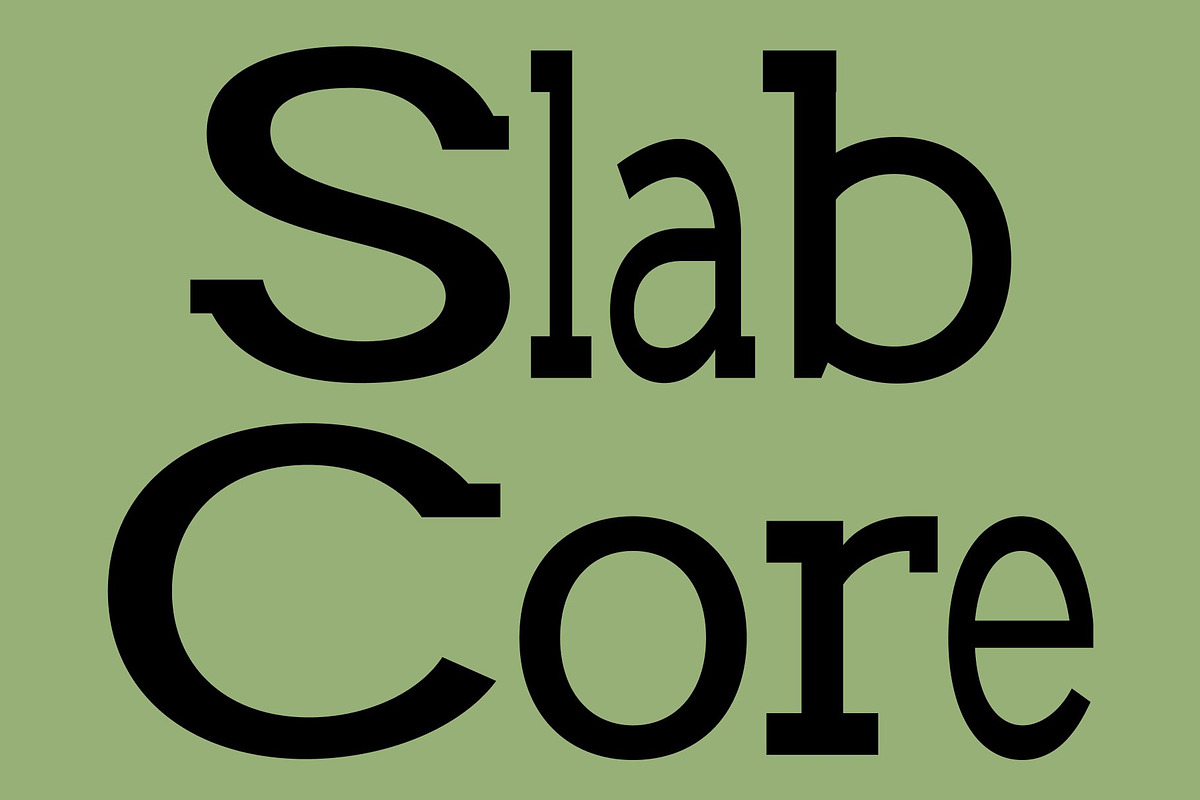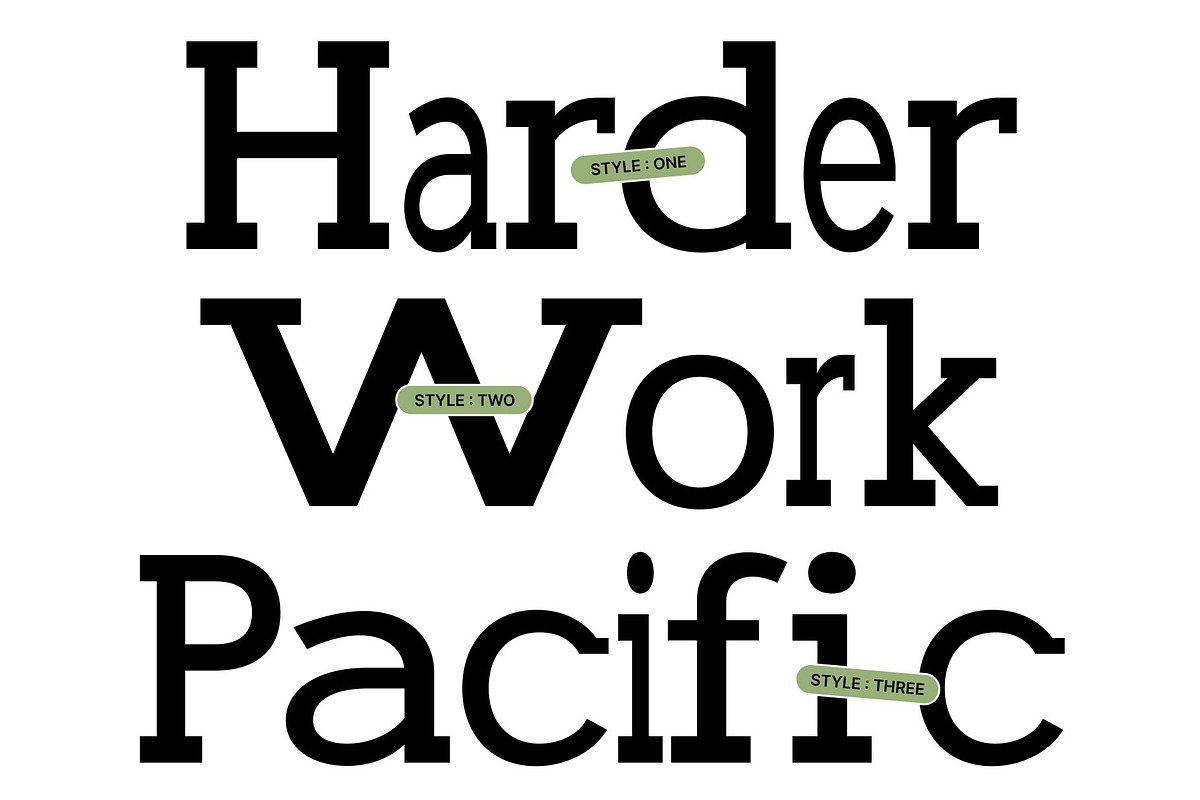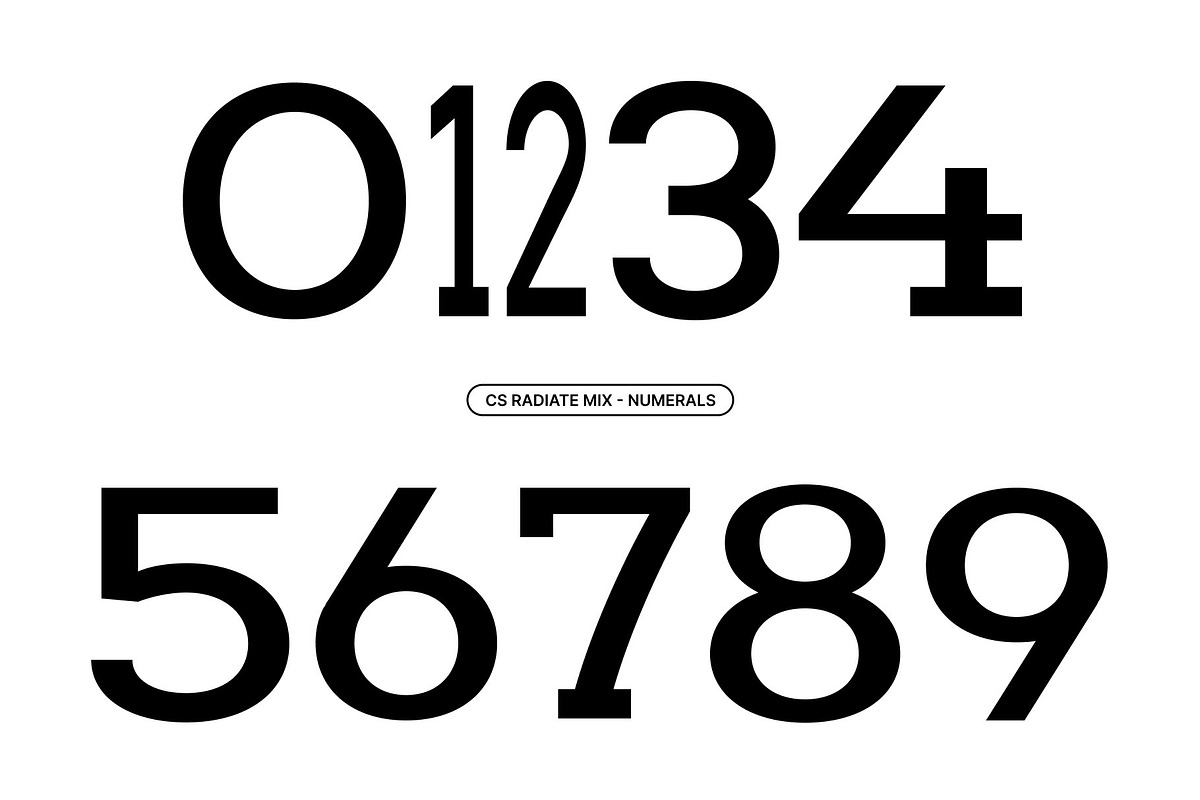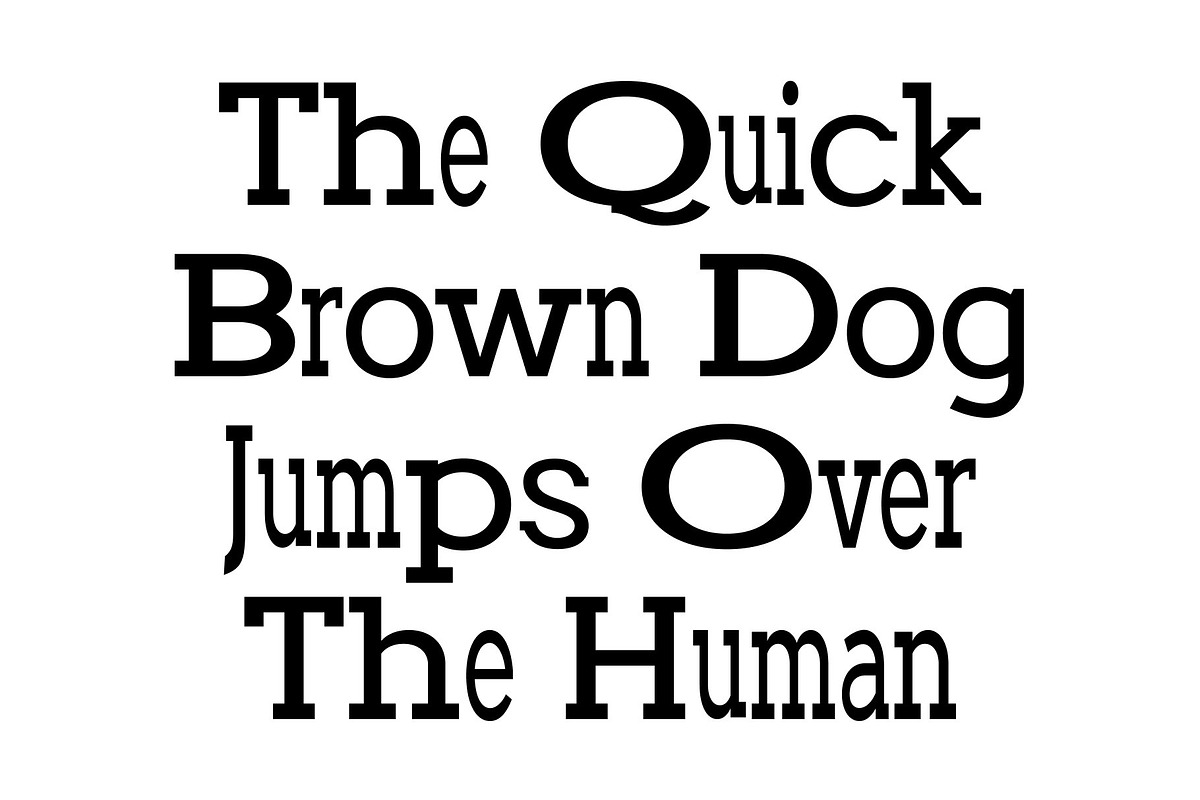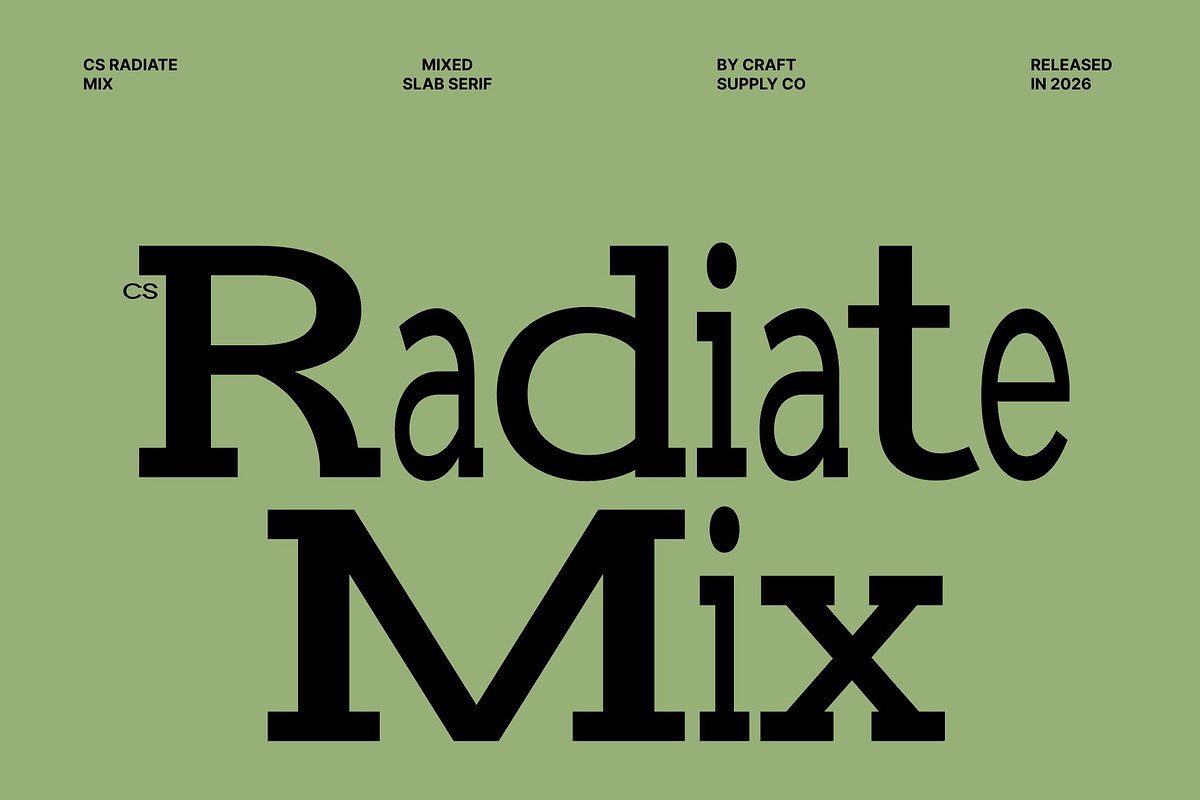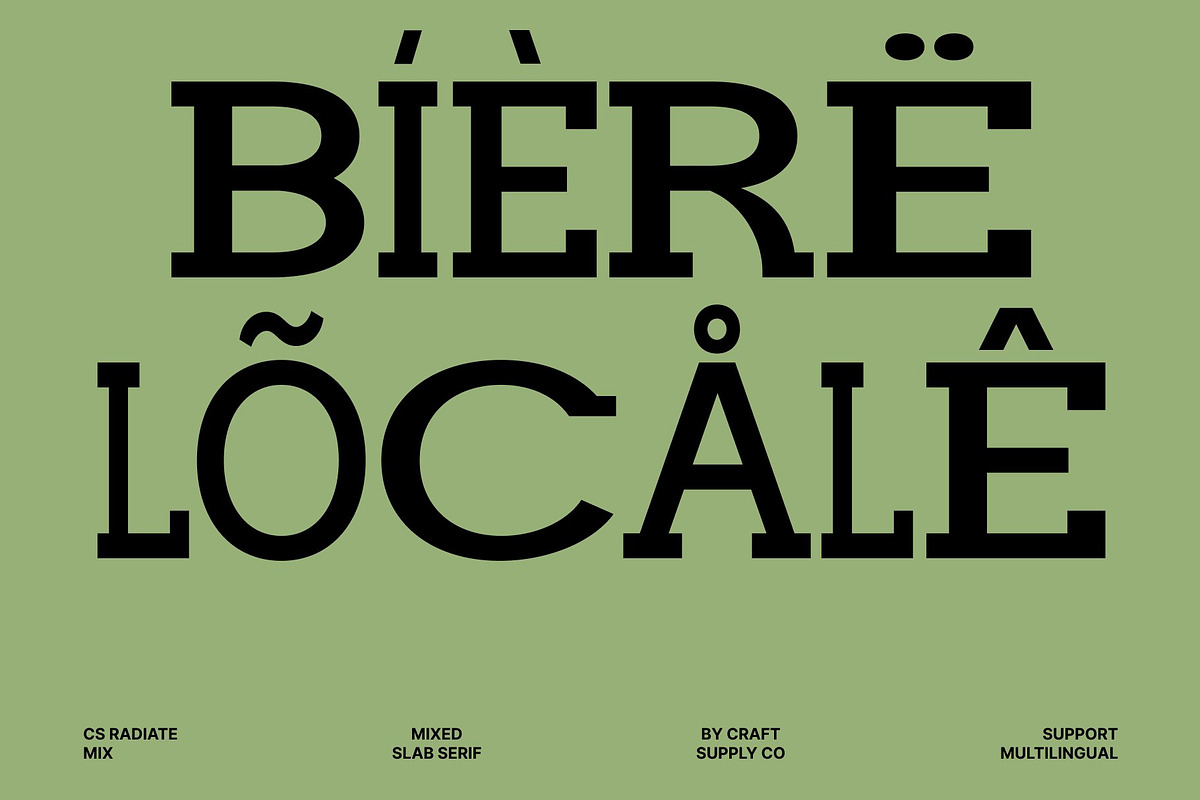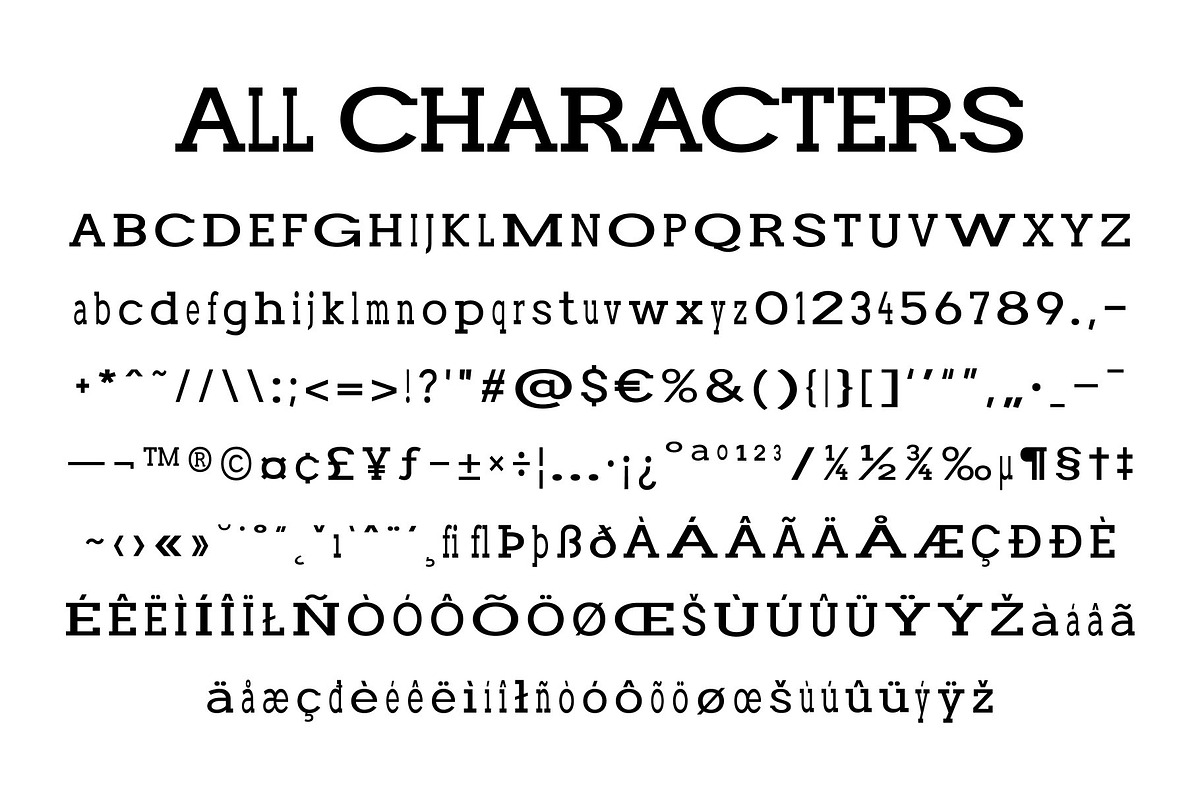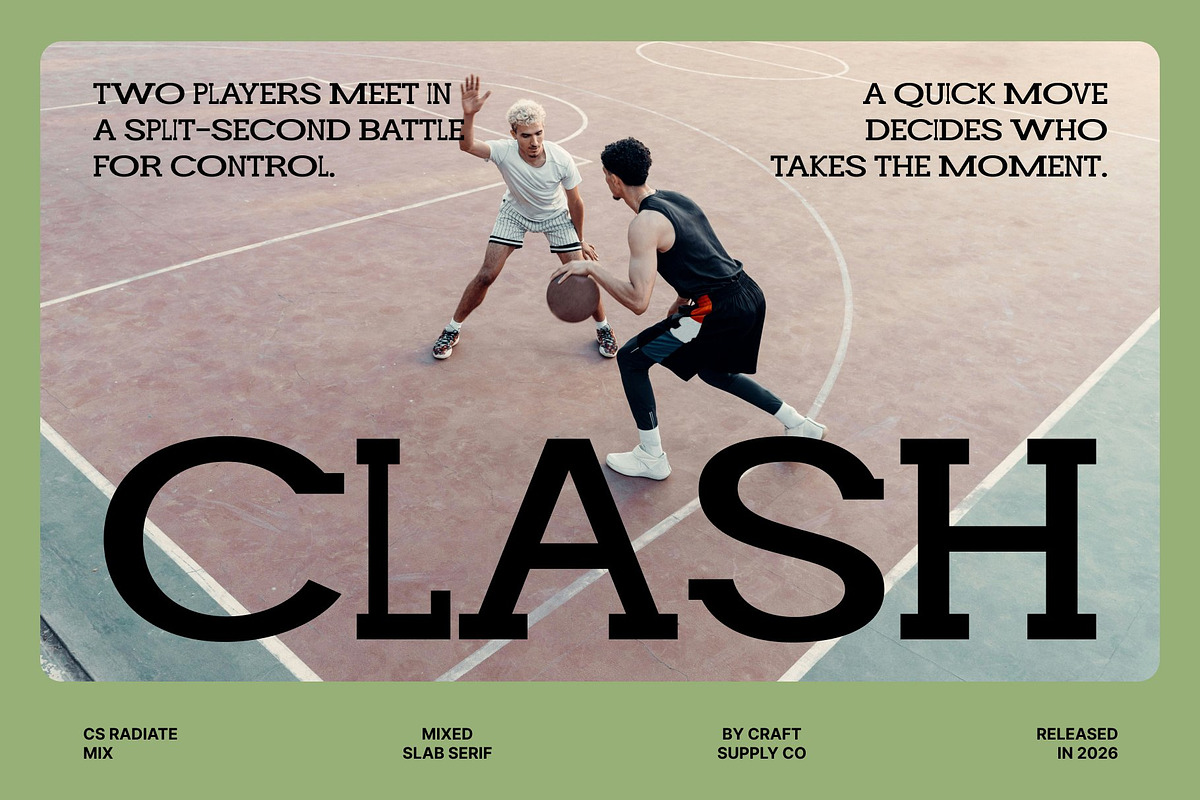
CS Radiate Mix
CS Radiate Mix – Bold Slab Serif Font: Powerful Structure with Contemporary Confidence
Bold Slab Serif with Mixed Style Character This is a bold slab serif font designed to express strength, authority, and modern visual impact. Built with thick serifs, geometric proportions, and a commanding structure, this typeface introduces a distinctive mixed-style concept that adds rhythm and contrast to every composition. It transforms bold typography into a dynamic visual element that feels sturdy, modern, and highly professional.
A Strong Blend of Bold and Regular Letterforms The defining character of this font lies in its creative fusion of bold and regular styles. This mixed-weight approach creates visual hierarchy and energetic flow, allowing typography to appear more expressive while maintaining balance and readability. The contrast between heavy strokes and structured forms enhances both impact and sophistication across headlines and branding materials.
Modern Geometry with Classic Slab Serif Strength This font combines the timeless solidity of slab serif typography with clean modern refinements. Its geometric construction creates a polished and contemporary appearance, while the thick serifs reinforce a sense of reliability and confidence.
Perfect for Branding, Posters, and Strong Visual Communication From logos and posters to billboards and editorial titles, this font excels in projects that demand strong visibility and bold communication. Its excellent readability ensures messages remain clear at both large and small scales, making it effective across print and digital media.
CS Radiate Mix One
CS Radiate Mix Two
CS Radiate Mix Three